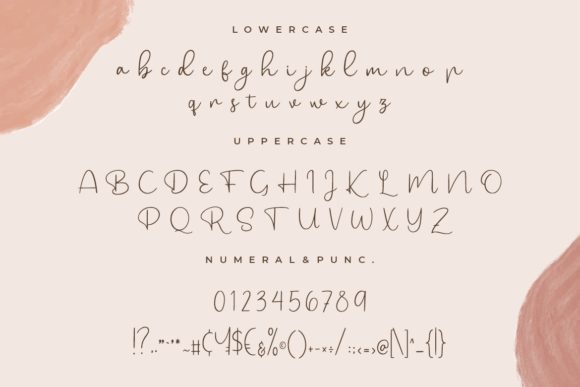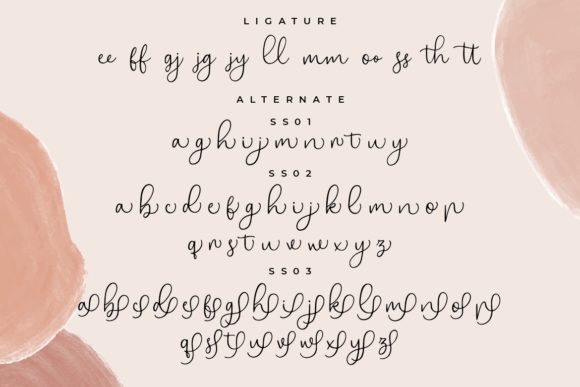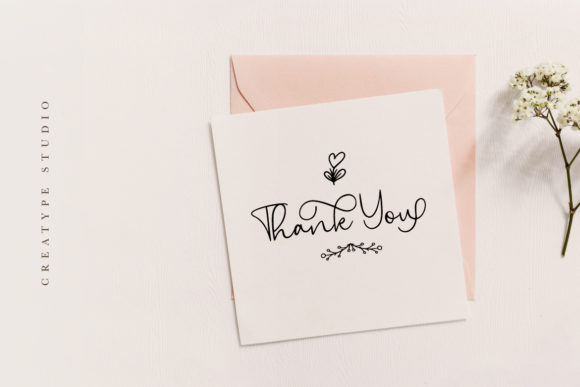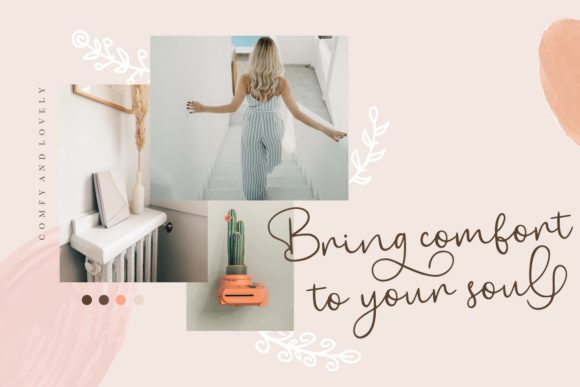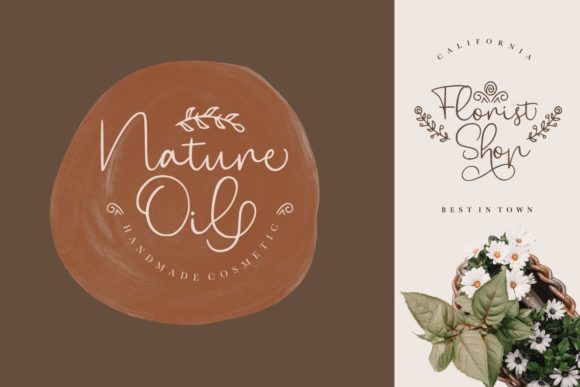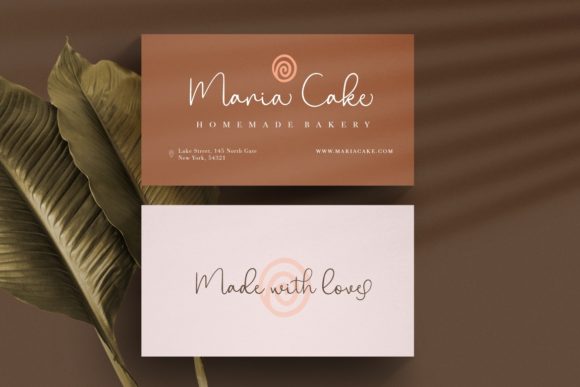
About Bryan Kimberly Font
Bryan Kimberly is a stunning handwritten font that captures attention with its delicate and charming style. This font stands out with its unique and well-rounded letterforms, making it a true masterpiece in the world of typography. Whether you’re designing logos, branding materials, wedding invitations, or any other creative project, Bryan Kimberly is sure to add a touch of elegance and whimsy.
One of the notable features of Bryan Kimberly is its cute ornaments, which further enhance the visual appeal of the font. These charming details can be used to embellish your designs, adding a playful and decorative element. From swirls and loops to flourishes and decorative elements, the ornaments of Bryan Kimberly offer endless possibilities for creative compositions.
The versatility of Bryan Kimberly allows it to shine across a wide range of design styles and themes. Whether you’re going for a romantic and dreamy look, a playful and fun aesthetic, or a sophisticated and elegant approach, this font can adapt effortlessly to your vision. Its distinct and well-crafted letters bring a sense of authenticity and personality to your typography, making each design truly unique.
Furthermore, Bryan Kimberly’s versatility extends to its usage in different design mediums. It works seamlessly in both digital and print formats, allowing you to incorporate it into various projects such as websites, social media graphics, packaging, posters, and more. The font’s legibility ensures that your message is conveyed clearly, while its beautiful and eye-catching appearance grabs the viewer’s attention.
By adding Bryan Kimberly to your collection of fonts, you gain access to a powerful tool for creating spectacular designs. Its versatility, distinct letterforms, and cute ornaments make it a perfect choice for adding a touch of beauty and creativity to your projects. Whether you’re a professional designer or someone with a passion for crafting, Bryan Kimberly provides you with the means to create stunning and visually appealing designs.
In summary, Bryan Kimberly is a beautiful handwritten font with cute ornaments that elevate its charm and appeal. Its distinct and well-rounded letters make it a true masterpiece, while its versatility allows it to be used in a variety of design contexts. Fall in love with its adorable details and embrace its incredibly versatile style to create spectacular designs that capture attention and leave a lasting impression.